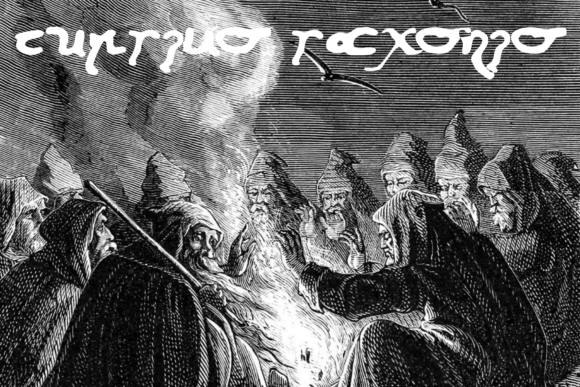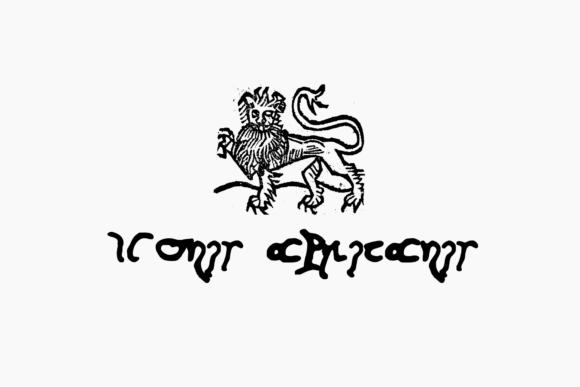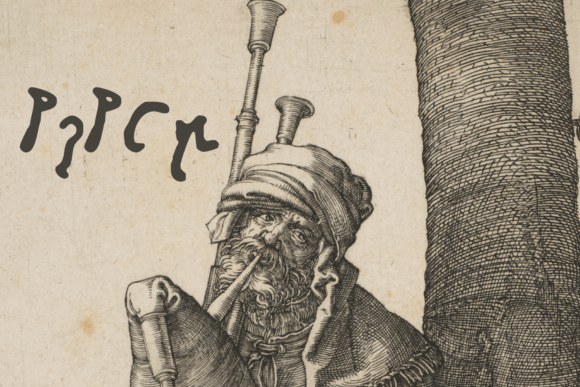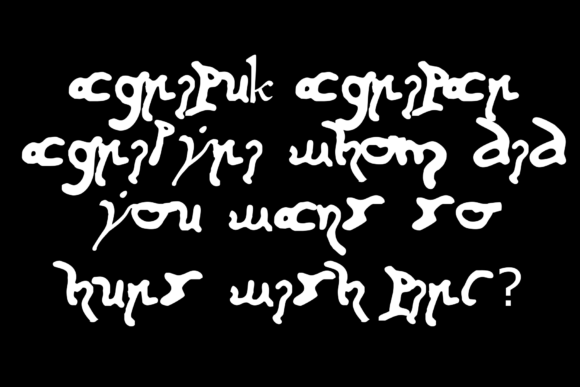
Cursivo Saxonio Font
About the Cursivo Saxonio Font
Get ready to be inspired by Cursivo Saxonio Font, a fresh and dynamic typeface for modern creators. Cursivo Saxonio is a typeface inspired by the famous book The Case of Charles Dexter Ward, by H P Lovecraft. It shows better than I get with my studies the authentic “Insularis” or “Cursivo Saxonio” hand-lettering of the VIII and XI centuries used by some people in Britain. The text on the accompanying poster reads: “Corwinus necandus est. Cadaver aq(ua) forti dissolvendum, nec aliq(ui)d retinendum. Tace ut potes”
Cursivo Saxonio’s dramatic, angular strokes make it ideal for headlines, short impactful texts on posters or packaging, and branding elements requiring a touch of gothic mystique. Its highly stylized nature, however, makes it unsuitable for body text or UI elements where readability is paramount. Long paragraphs set in this font would be difficult to decipher.
The font’s personality is undeniably serious and mysterious, conveying a sense of age and occult knowledge. This makes it a powerful choice for projects related to horror, fantasy, historical fiction, or esoteric themes.
Pairing Cursivo Saxonio with a clean sans-serif like Futura or a more modern geometric font like Bebas Neue provides a strong contrast, grounding its ornate forms and enhancing readability in supporting text. A classic serif like Garamond could also work, offering a sophisticated counterpoint to the font’s gothic feel.